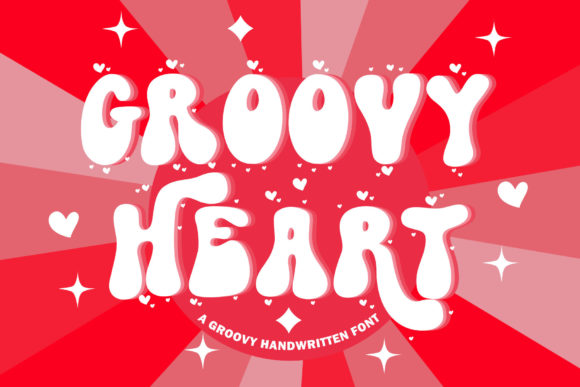
Are you in search of the perfect font to elevate your retro designs? Look no further than the XGroovy Heart Font by jimtypestudio! This font is not only versatile but also captivating, adding a touch of urban inspiration to any project.
The Groovy Heart font is part of a unique display font family, perfect for creating standout headers and titles. Its retro design is sure to catch the eye and make a lasting impression on your audience. But don't just take our word for it! The font's PUA encoding makes it easy to access all of the glyphs and swashes, allowing you to customize your design and truly make it your own.
Whether you're designing a vintage-inspired logo or creating a bold and eye-catching poster, the XGroovy Heart Font is the perfect addition to your font collection. Its unique style and versatility make it a must-have for any designer looking to add a touch of retro charm to their work.